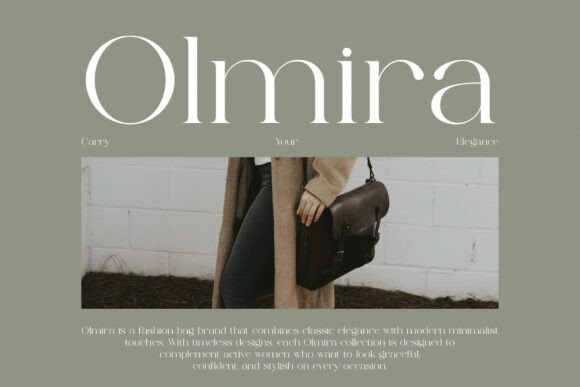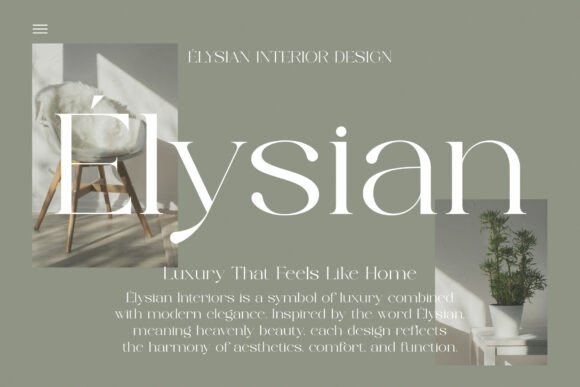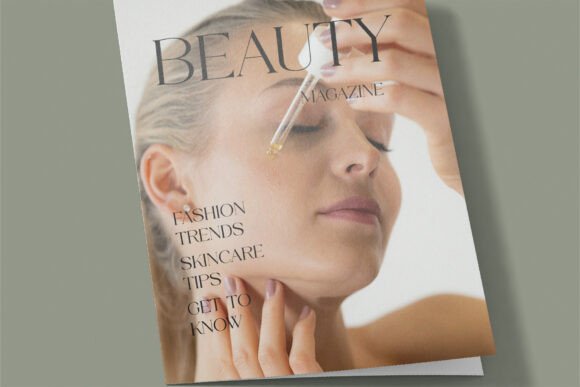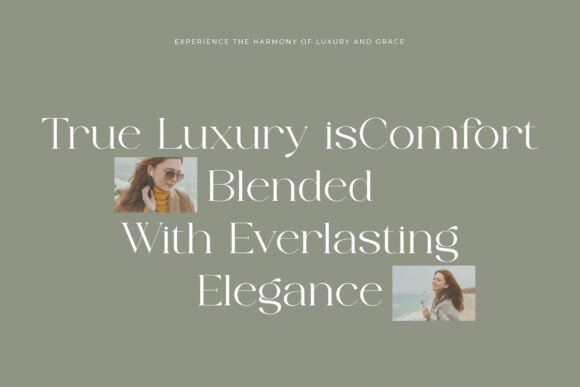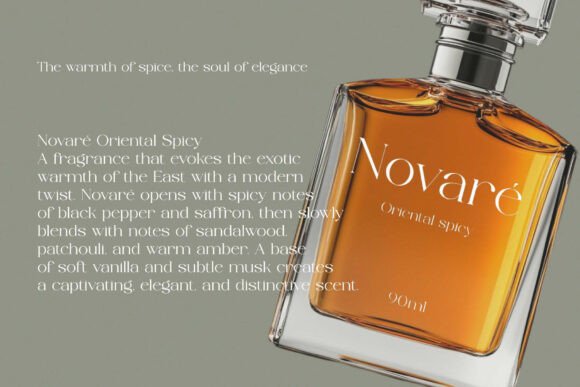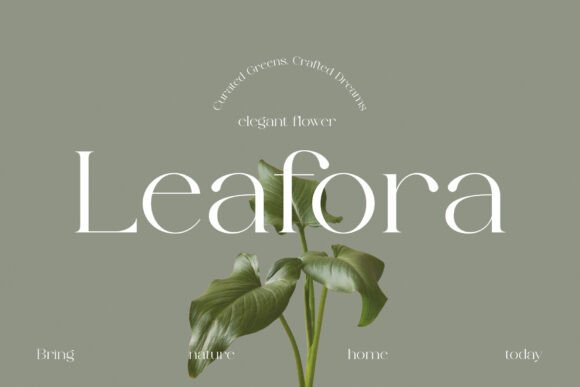
Experience the Sophisticated Rhythm of Broken Walken: A Modern Serif Font Redefining Editorial Elegance
In the realm of typography, few fonts manage to strike a balance between elegance and avant-garde flair. Broken Walken, a modern serif font, achieves this delicate balance with breathtaking precision. This typeface is a study in cinematic contrast, featuring tall letterforms with razor-sharp hairlines and robust vertical stems that exude a sense of sophistication and luxury.
The Unique Character of Broken Walken
What sets Broken Walken apart from other serif fonts is its distinctive “broken” or stencil-inspired apertures. These apertures provide a high-fashion, avant-garde aesthetic that feels both architectural and ethereal. The font’s unique character is a masterful blend of contrasting elements, combining the elegance of traditional serif fonts with the edginess of modern, experimental typography.
Applications for Broken Walken
Broken Walken is an extraordinary choice for luxury branding, high-end magazine headers, boutique hotel signage, and artisanal packaging. Its sophisticated rhythm and polished artisanal beauty make it an ideal font for designers and crafters seeking to elevate their visual identity. Whether you’re creating a luxury brand, a high-end magazine, or a boutique hotel’s signage, Broken Walken delivers a sense of unyielding professional authority and elegance.
Key Features of Broken Walken
- Breathtakingly tall letterforms: Broken Walken’s tall letterforms create a sense of grandeur and sophistication, making it perfect for headlines and titles.
- Razor-sharp hairlines: The font’s razor-sharp hairlines add a touch of elegance and refinement, creating a sense of luxury and high-end quality.
- Robust vertical stems: The robust vertical stems of Broken Walken provide a sense of strength and stability, making it ideal for use in titles and headlines.
- “Broken” or stencil-inspired apertures: The font’s unique apertures create a high-fashion, avant-garde aesthetic that feels both architectural and ethereal.
Why Choose Broken Walken?
Broken Walken is more than just a font – it’s a statement. It’s a declaration of sophistication, elegance, and refinement. With Broken Walken, you can create visual identities that exude luxury, professionalism, and artisanal beauty. Whether you’re a designer, a crafter, or a brand looking to elevate your visual identity, Broken Walken is an extraordinary choice.
Tips for Using Broken Walken
To get the most out of Broken Walken, consider the following tips:
- Use it sparingly: Broken Walken is a font that demands attention. Use it sparingly to create a sense of drama and emphasis.
- Pair it with a neutral font: Pair Broken Walken with a neutral font to create a sense of balance and contrast.
- Experiment with different sizes: Experiment with different sizes to create a sense of hierarchy and visual interest.
Broken Walken is a modern serif font that redefines editorial elegance. Its unique character, sophisticated rhythm, and polished artisanal beauty make it an extraordinary choice for luxury branding, high-end magazine headers, boutique hotel signage, and artisanal packaging. With Broken Walken, you can create visual identities that exude luxury, professionalism, and elegance. Experience the sophisticated rhythm of Broken Walken and elevate your visual identity today.